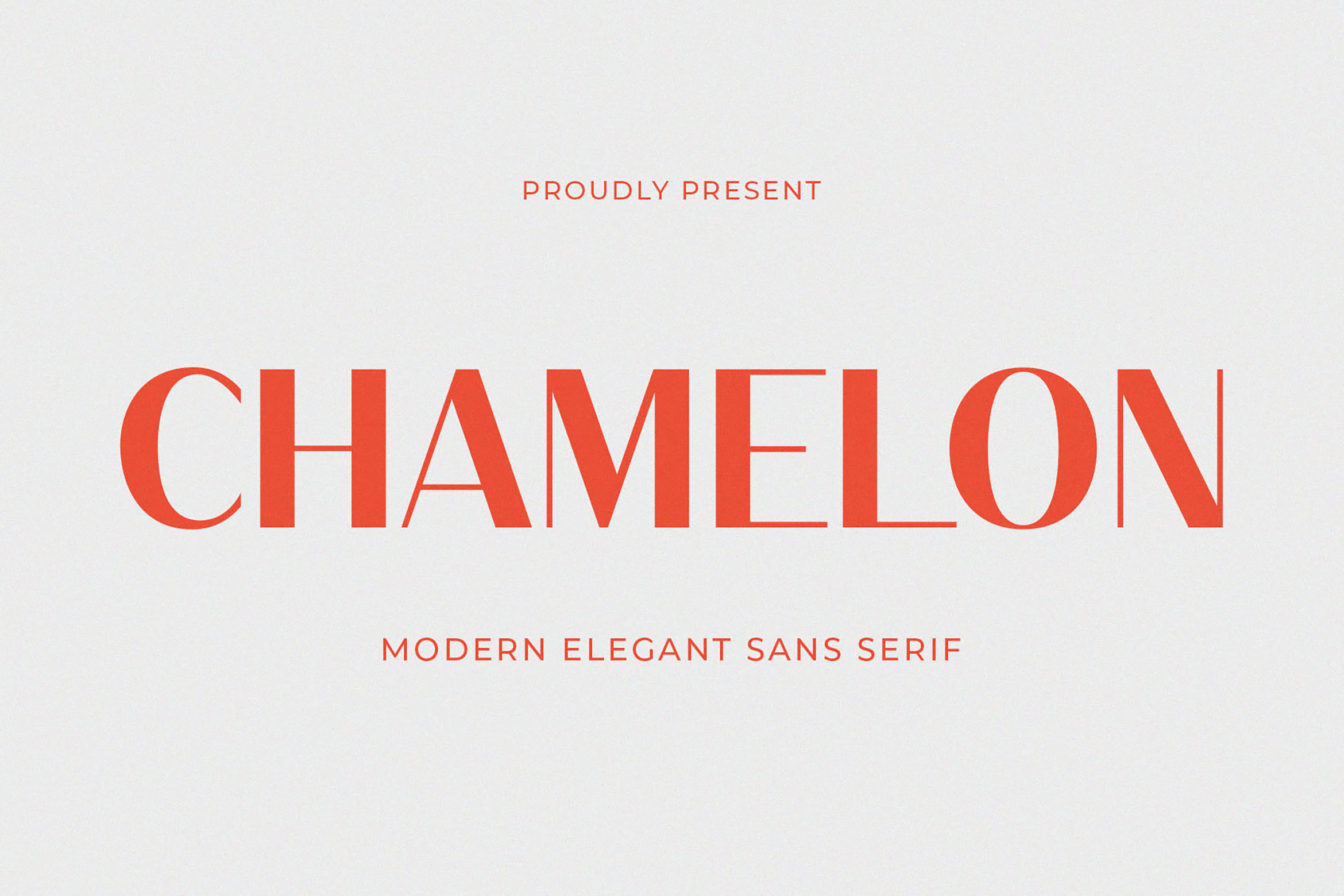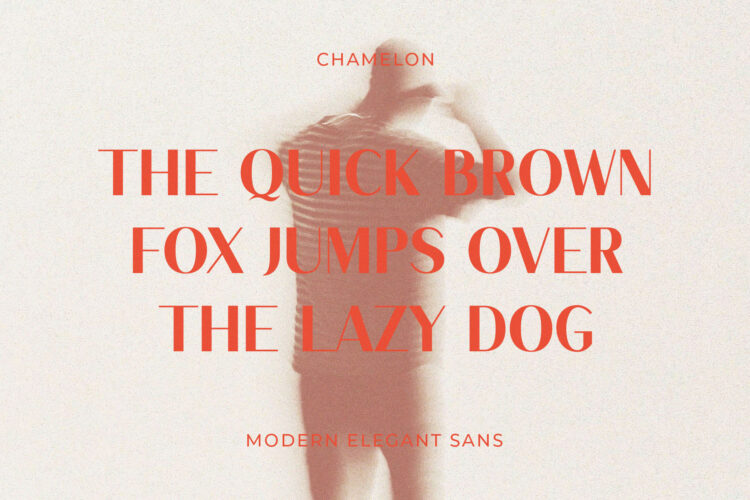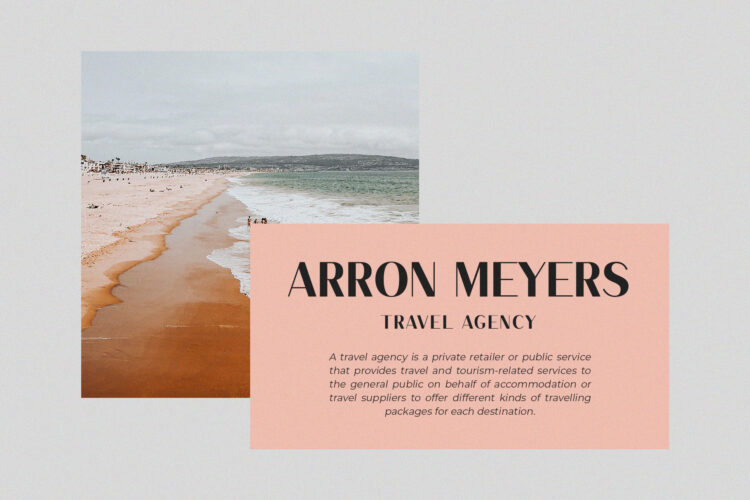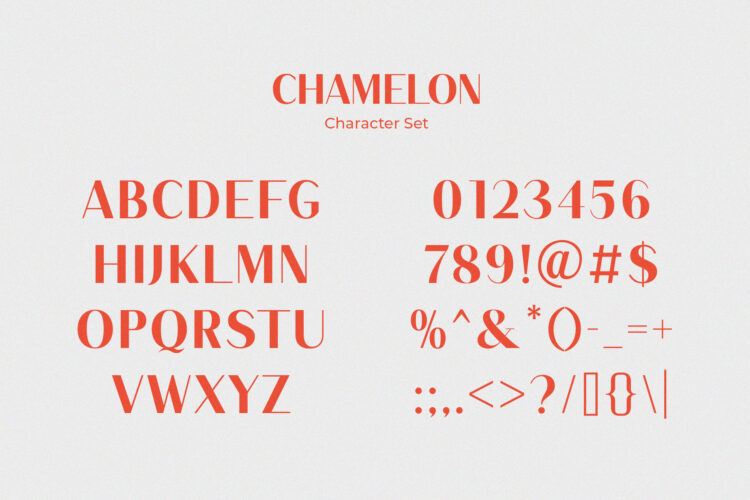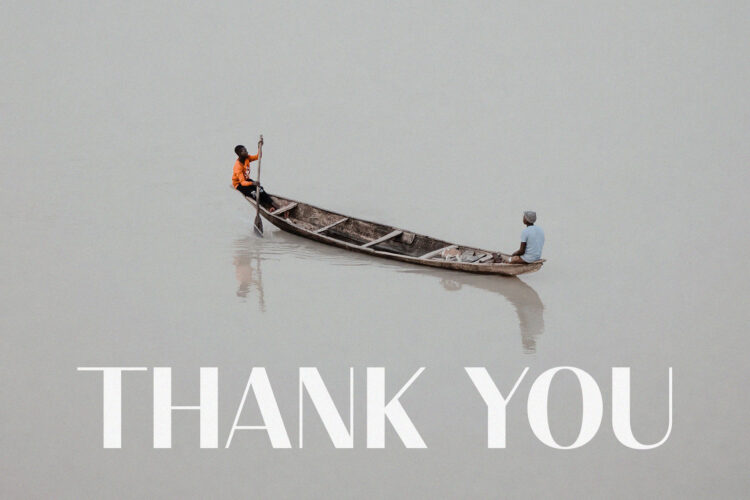
Introducing our new Chamelon, modern sans serif font with elegant style this is perfect for branding, logos, invitation, magazines, product packaging and more.
Chamelon – Modern Elegant Sans Serif